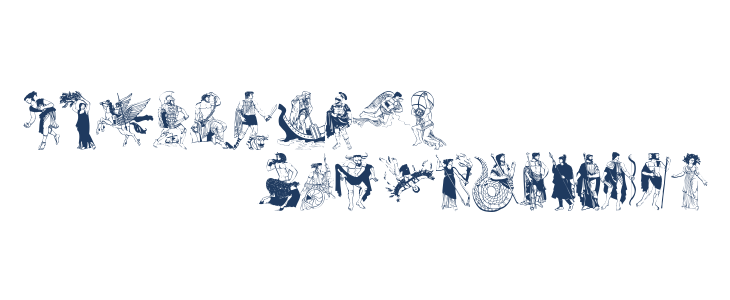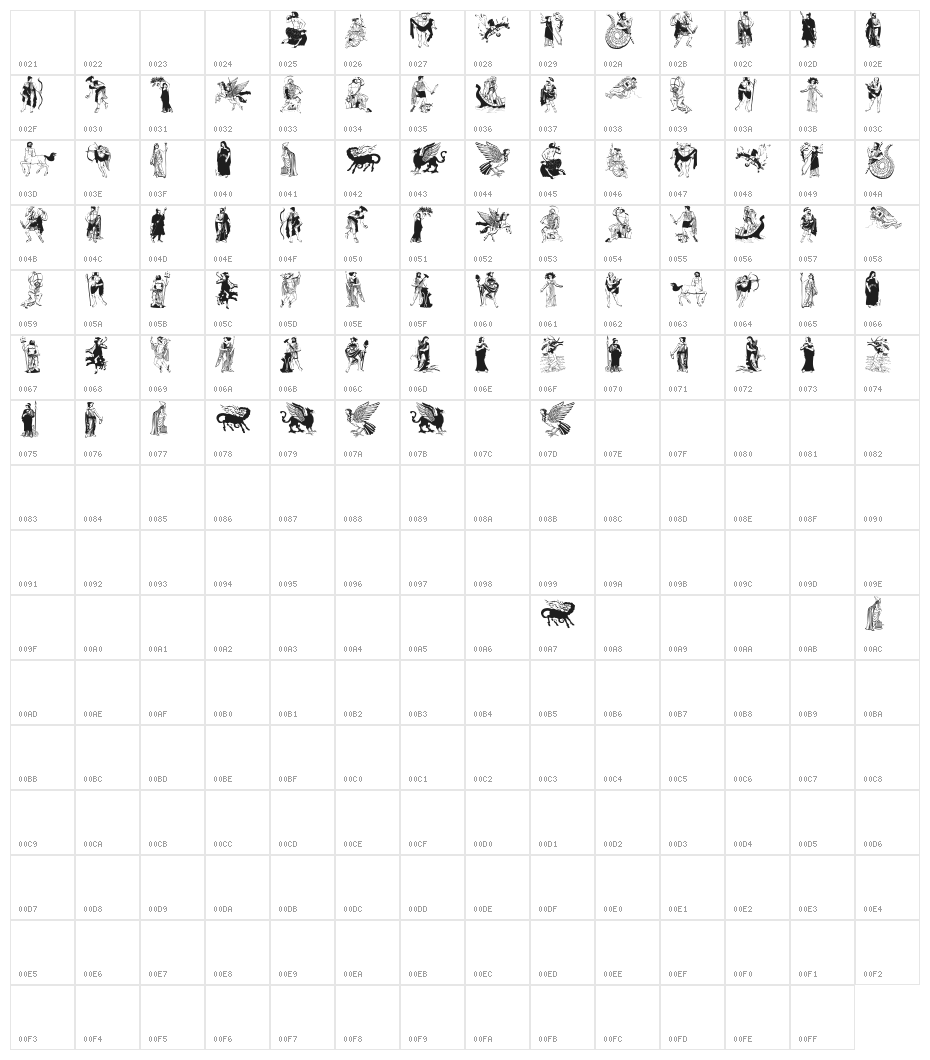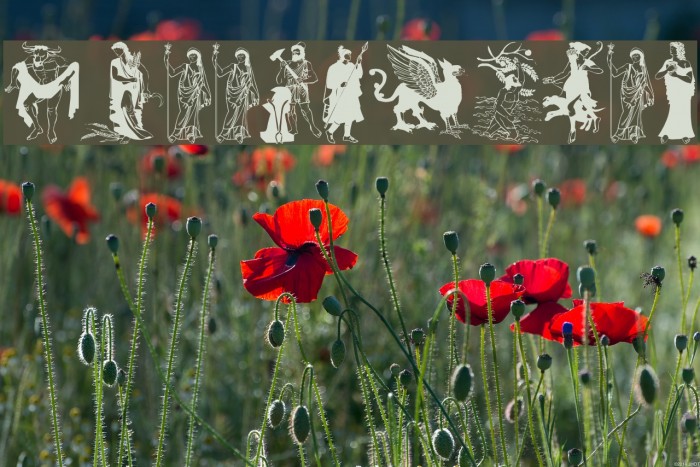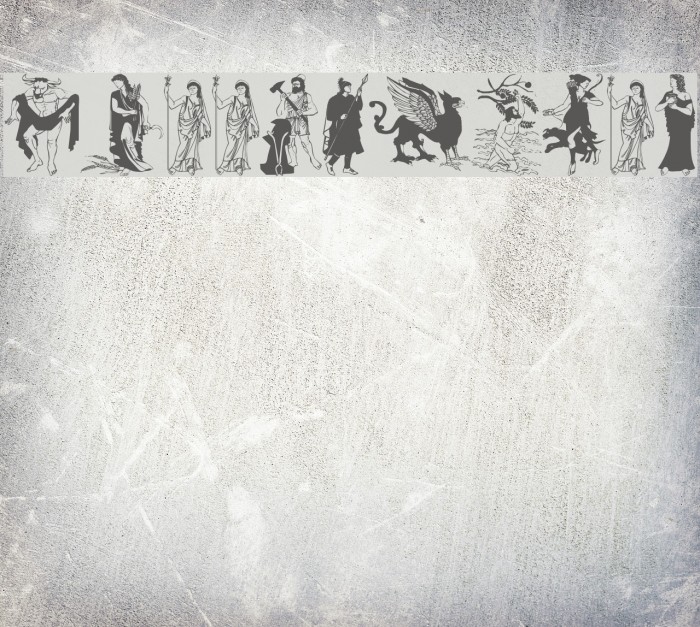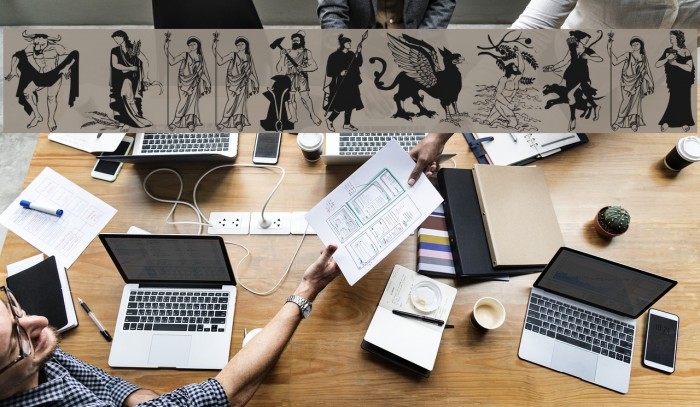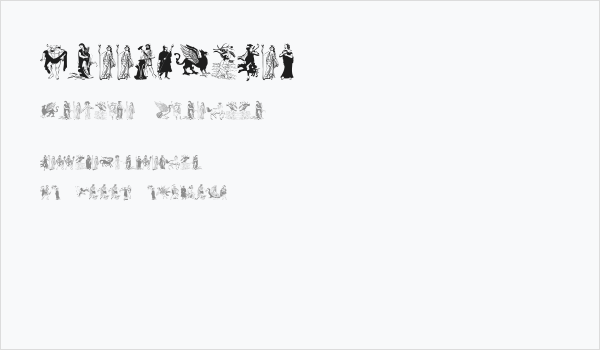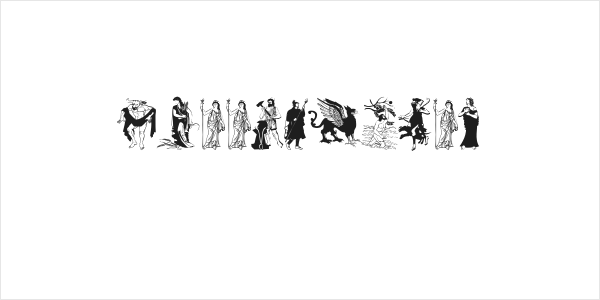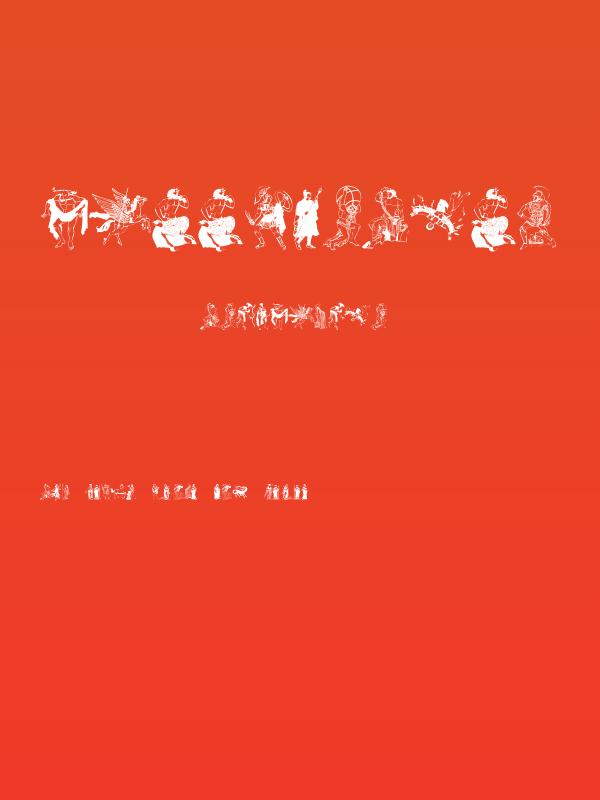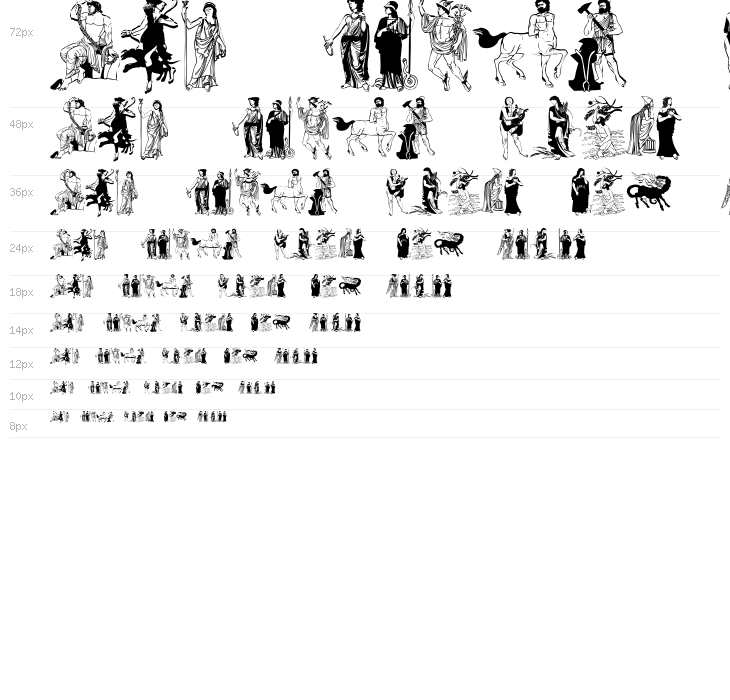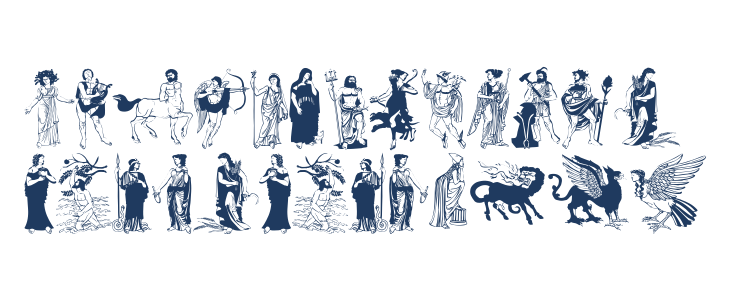
GreekMythes Font
GreekMythes Description
A highly detailed decorative font composed of intricate illustrations inspired by Greek mythology, featuring gods, heroes, mythical creatures, and classic motifs in black and white line art. Each character is represented by a unique mythological scene or figure, making it visually rich and thematic.
Overall StyleDecorative, Mythological, Artistic
Use CaseHeadlines, Logos, Posters, Themed graphics
Proposed ProjectsBook covers, posters, educational materials, themed event invitations, museum displays, art projects.